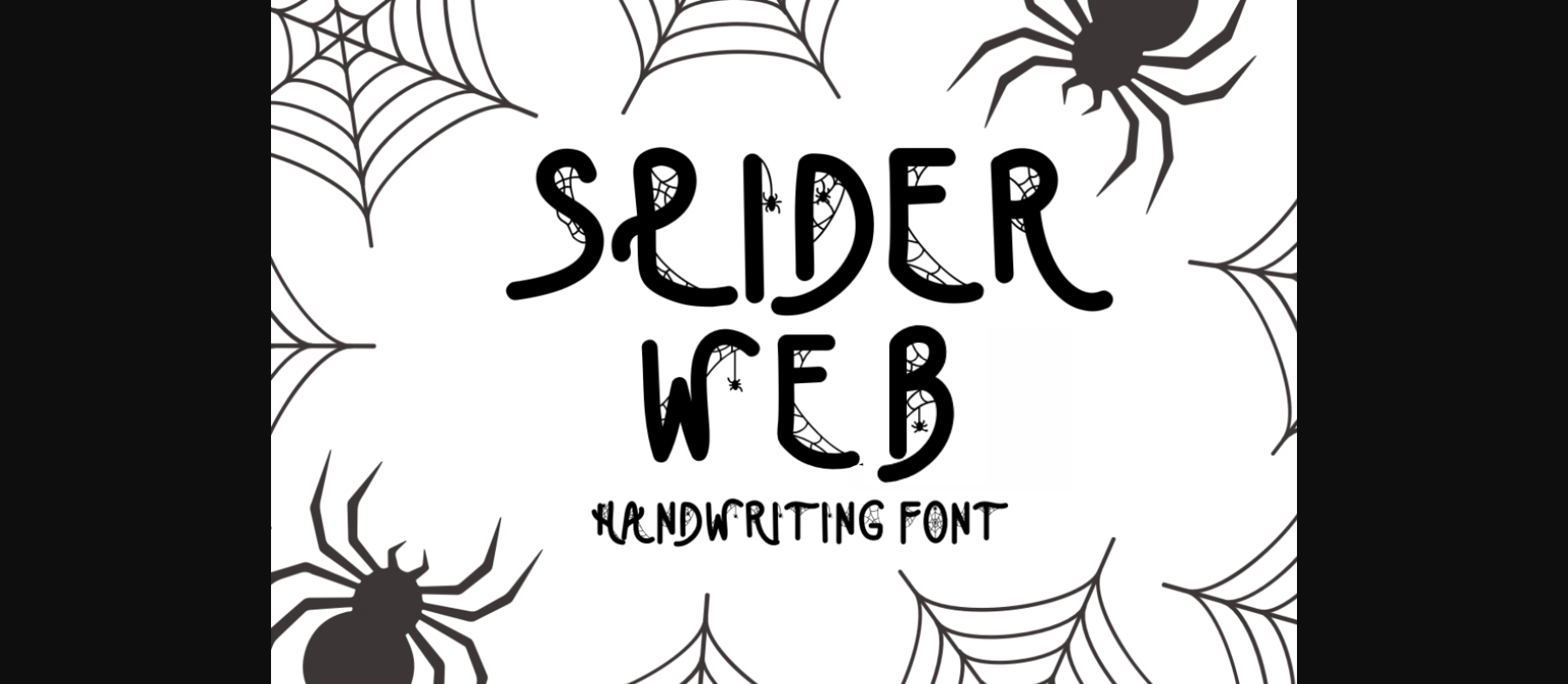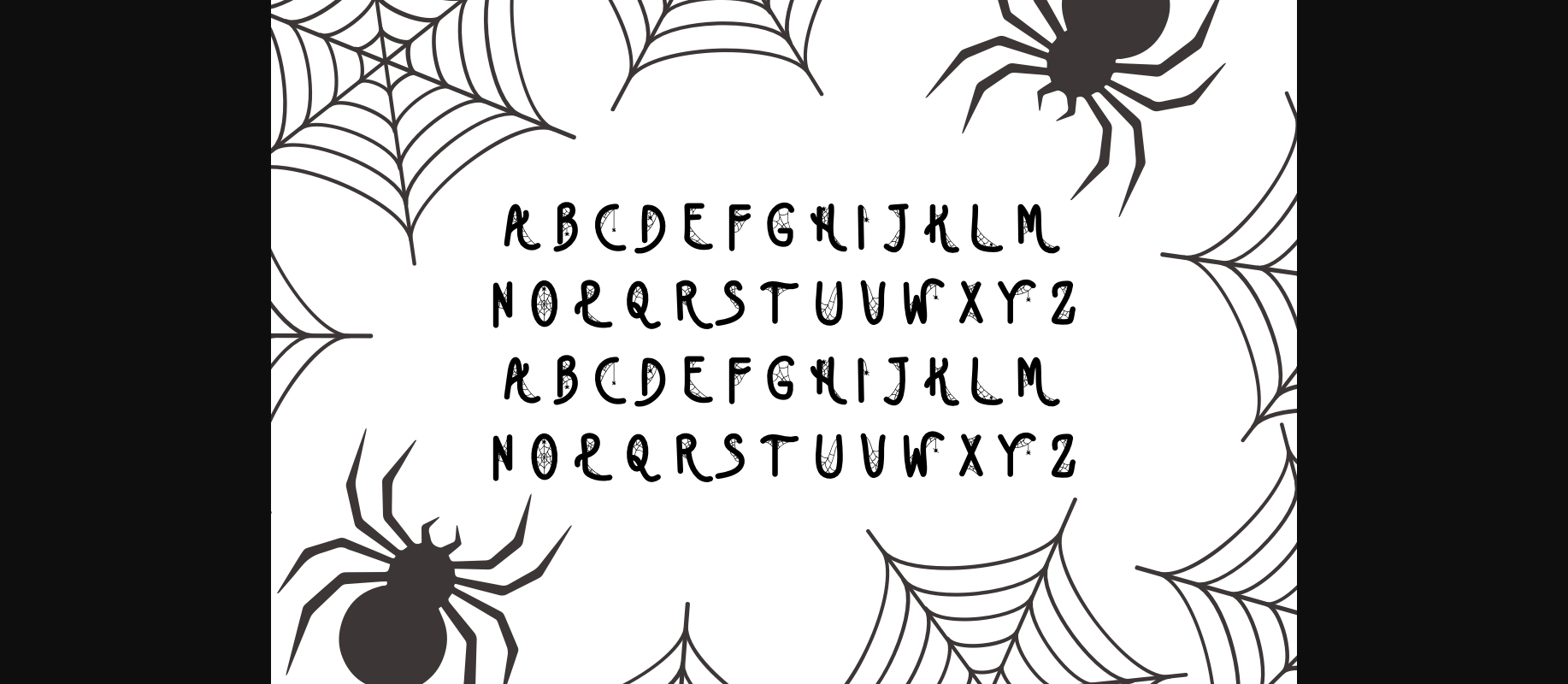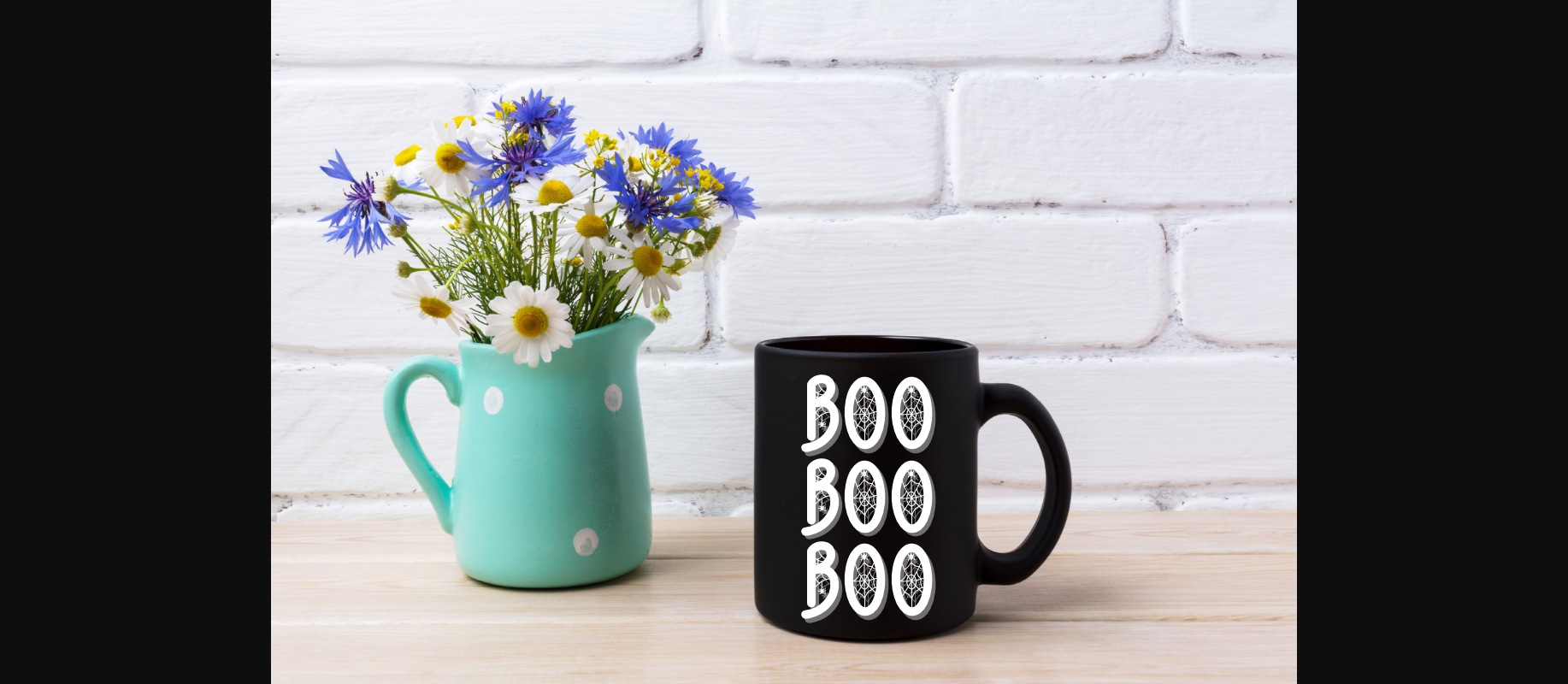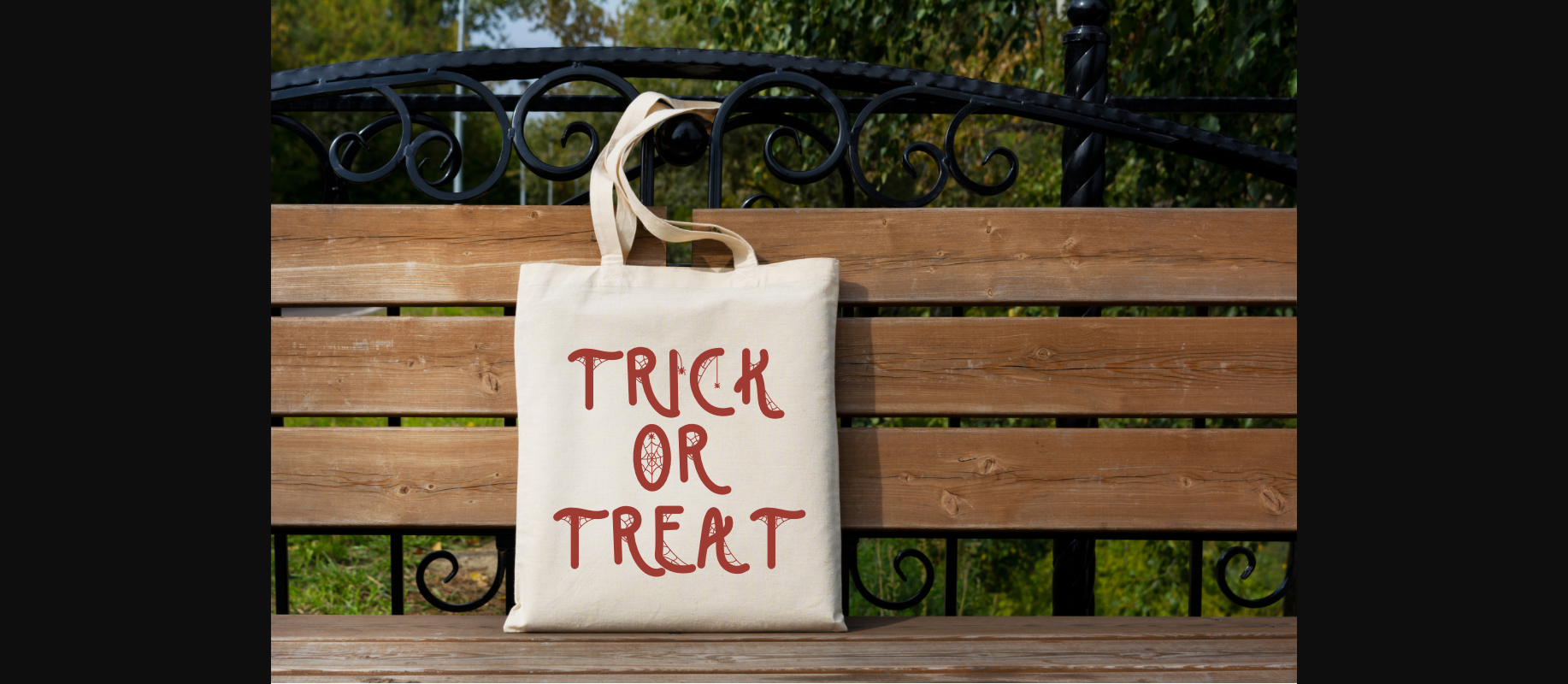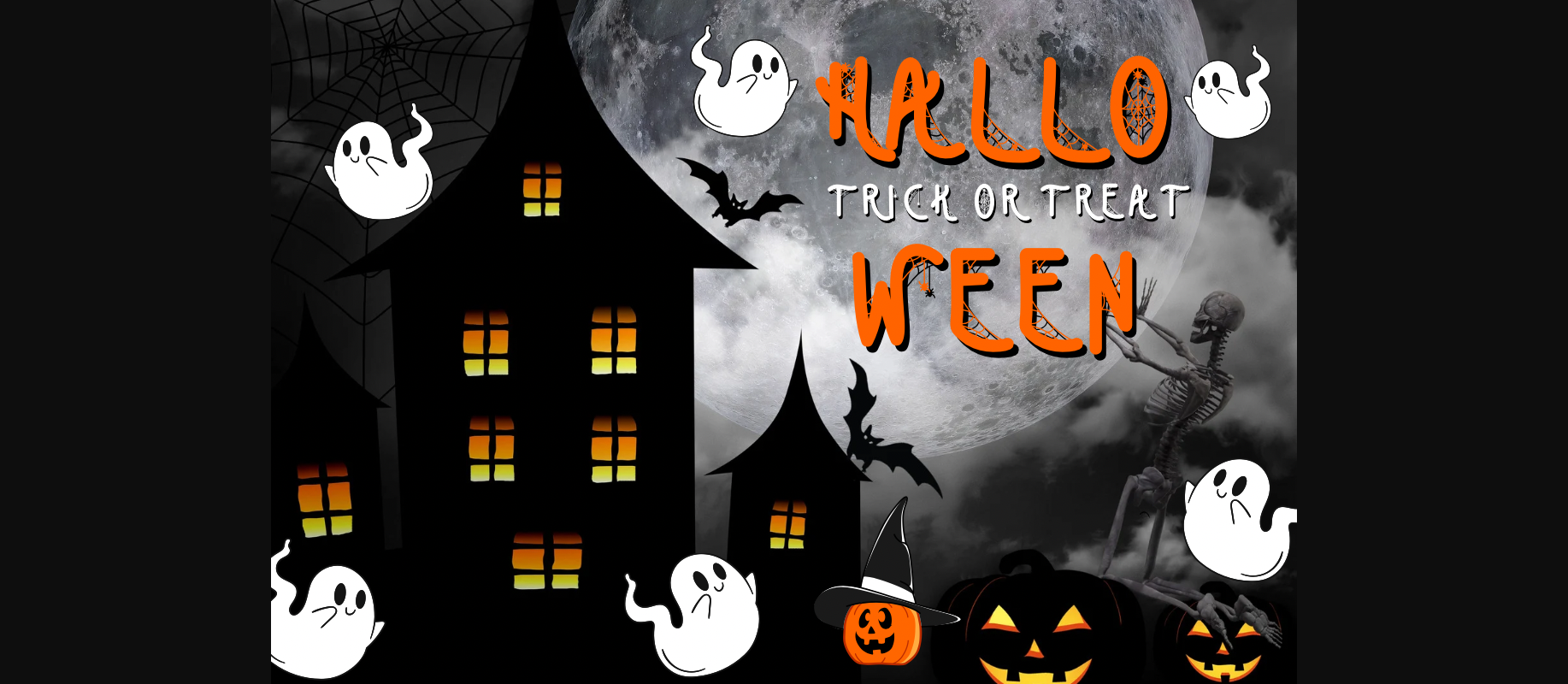
Spider Web Font
About Spider Web Font
Spider Web is a playful handwritten font with a spooky twist – tiny spider webs dangle from the letters, adding a unique touch to your text. Perfect for Halloween designs, spooky invitations, or anything that needs a bit of creepy charm. With Spider Web, your words will weave a web of intrigue!